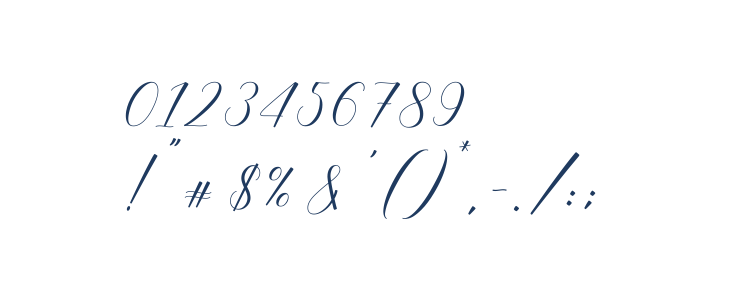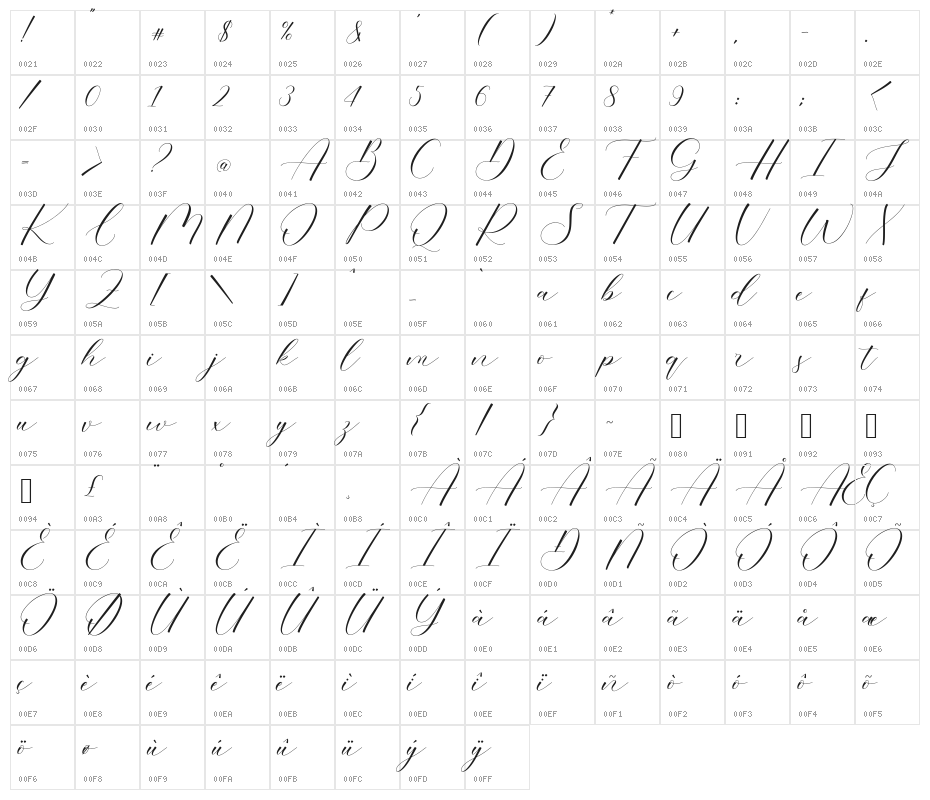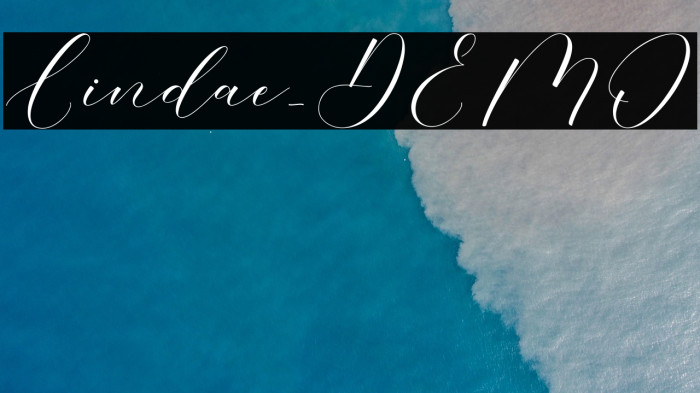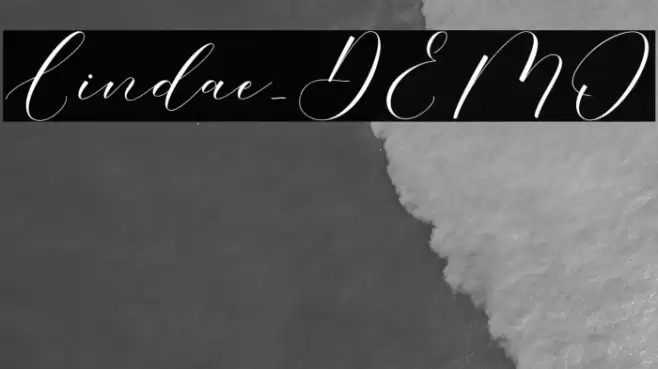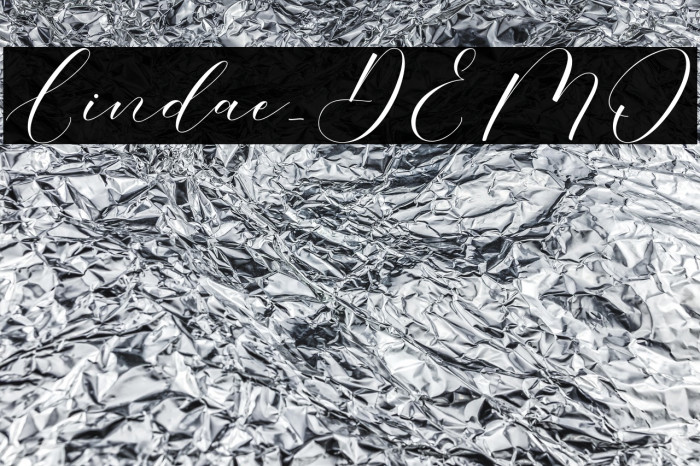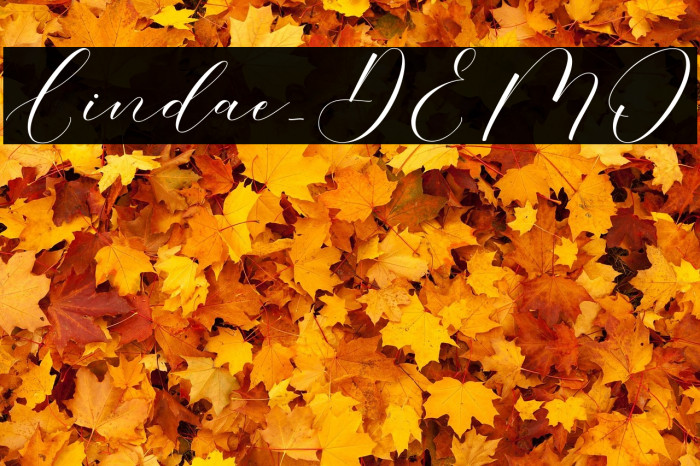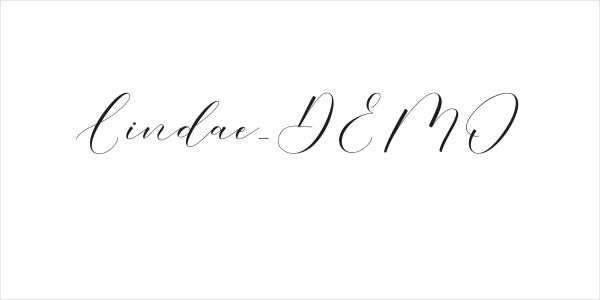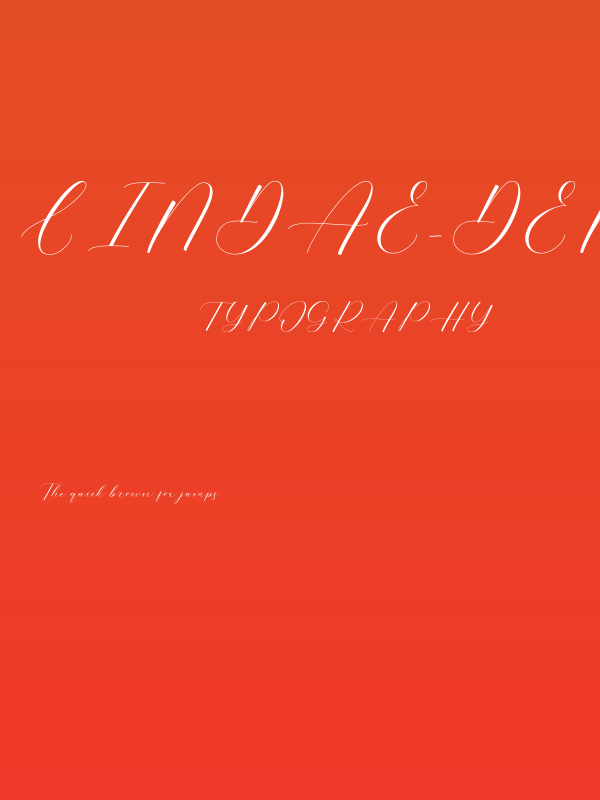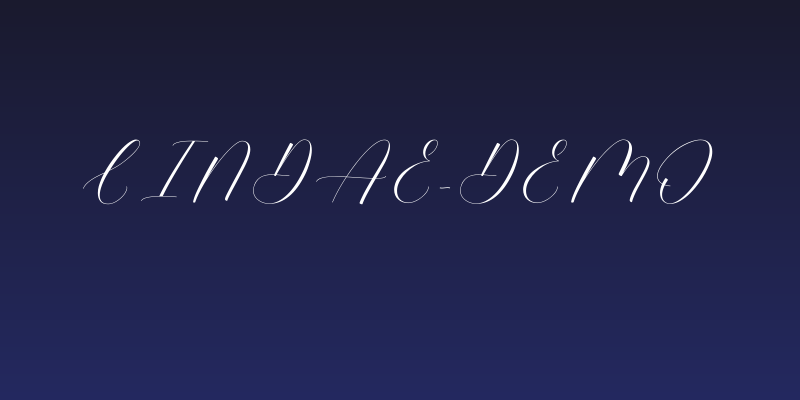
Lindae_DEMO Font
Lindae_DEMO Description
This elegant script font features a graceful, flowing style with delicate curves and loops. The uppercase letters are tall and slender, with a slight slant that adds a sense of movement and sophistication. The lowercase letters are more rounded, maintaining the fluidity and elegance of the script. The numerals are consistent with the overall style, featuring the same thin strokes and gentle curves. Special characters are designed with the same attention to detail, ensuring a cohesive look across all glyphs. This font is perfect for projects that require a touch of elegance and class.
| Overall Style | Elegant, Sophisticated |
| Proposed Projects | Ideal for wedding invitations, elegant branding, luxury product packaging, and high-end editorial design. |